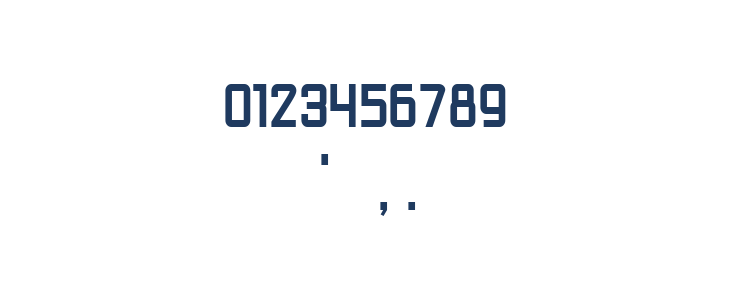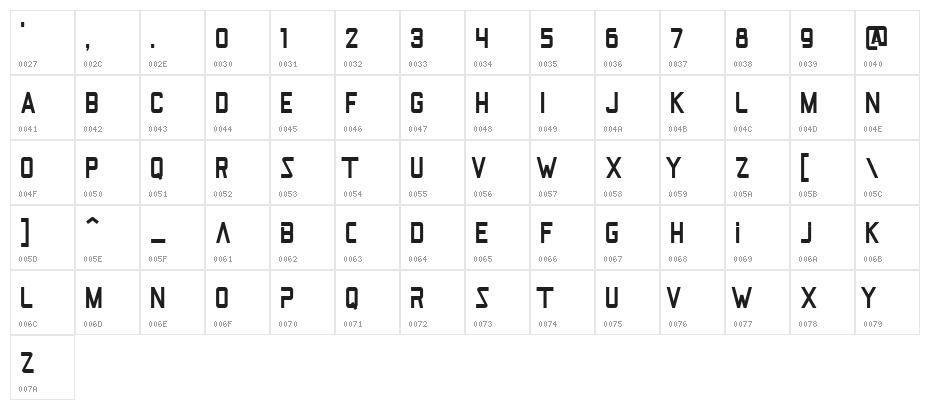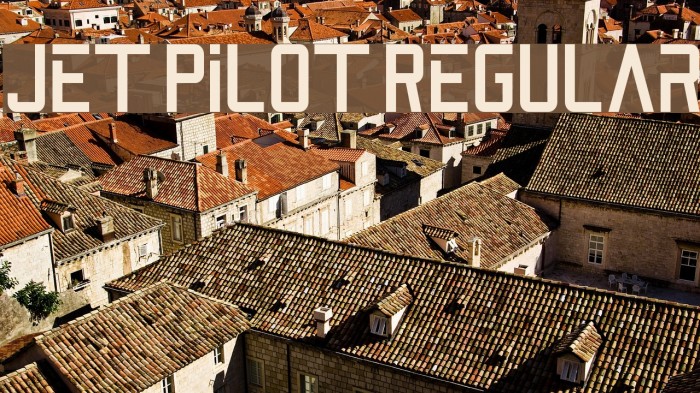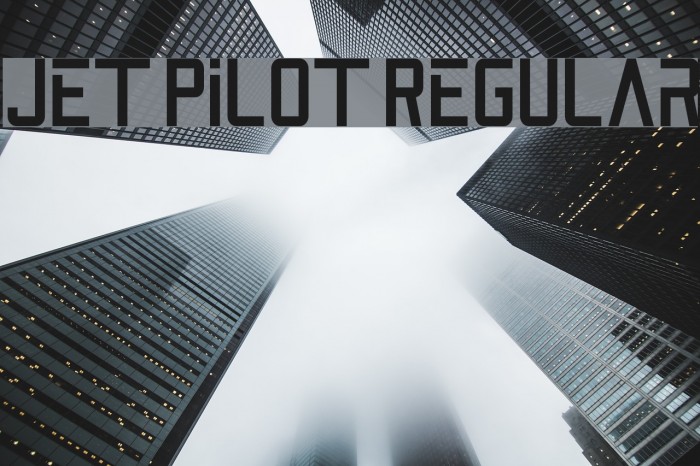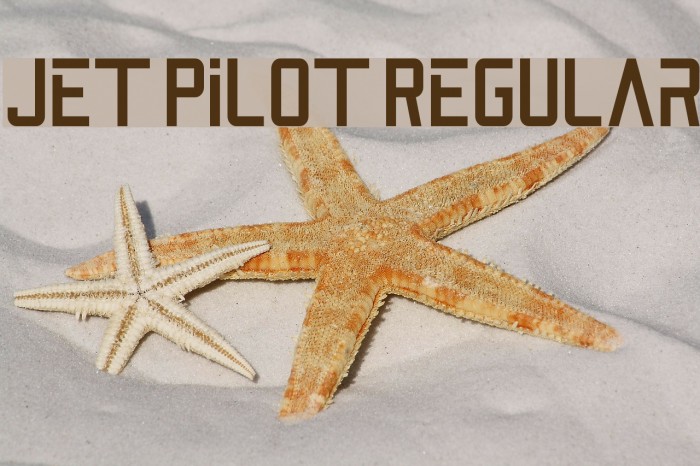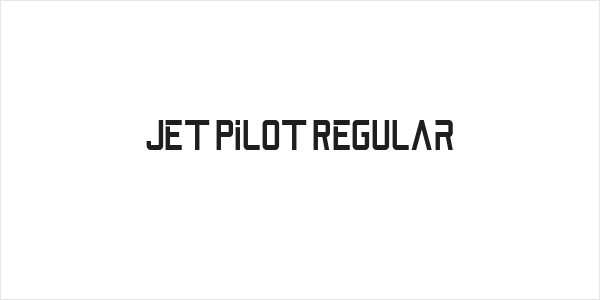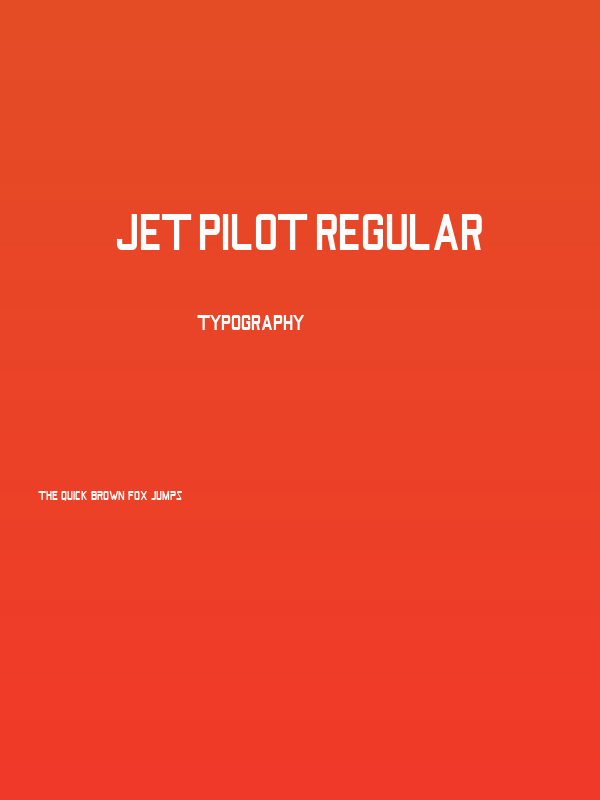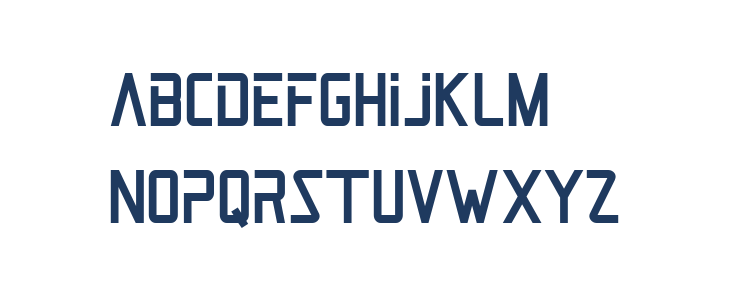
Jet Pilot Regular Font
Jet Pilot Regular Description
This font exhibits a bold, geometric style with a strong, modern aesthetic. The characters are constructed with uniform stroke widths, giving them a sturdy and robust appearance. The uppercase letters are particularly striking, featuring angular lines and sharp edges that convey a sense of precision and strength. The lowercase letters maintain the same geometric consistency, ensuring readability while preserving the font's distinctive style. The numerals are clear and straightforward, matching the overall design with their blocky, angular form. This font's design is reminiscent of aviation or military themes, making it suitable for projects that require a bold and assertive typeface.
| Proposed Projects | Ideal for branding, posters, headlines, and any design requiring a strong, modern aesthetic. |